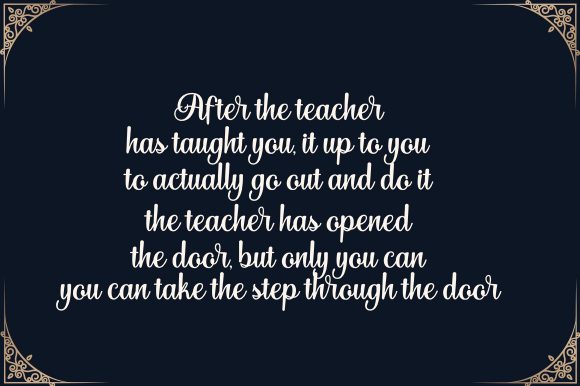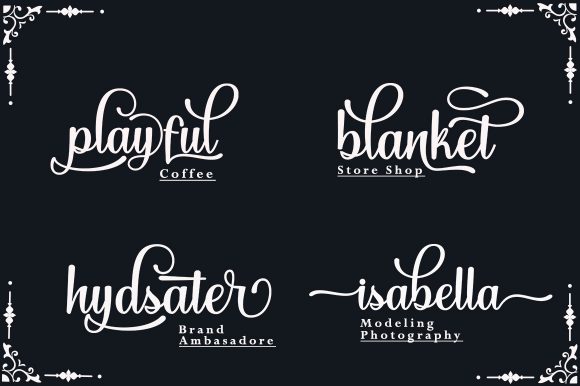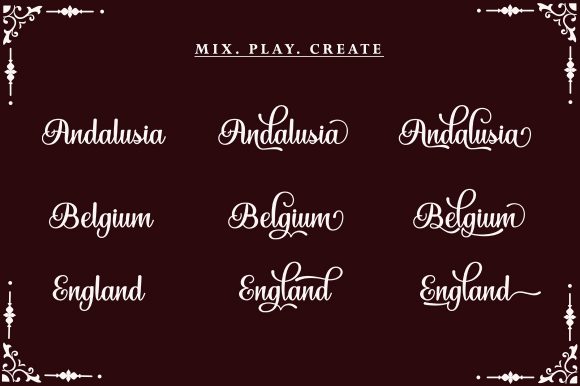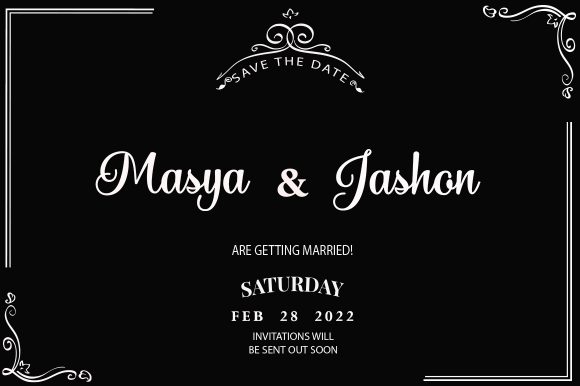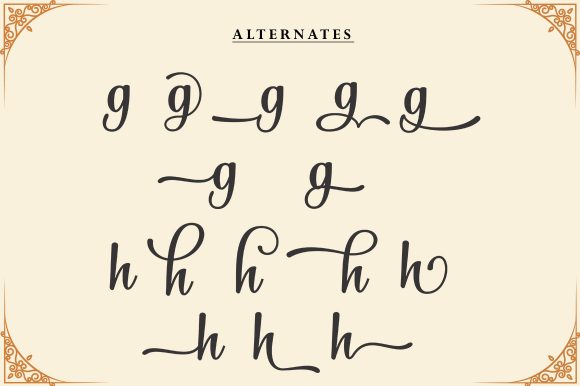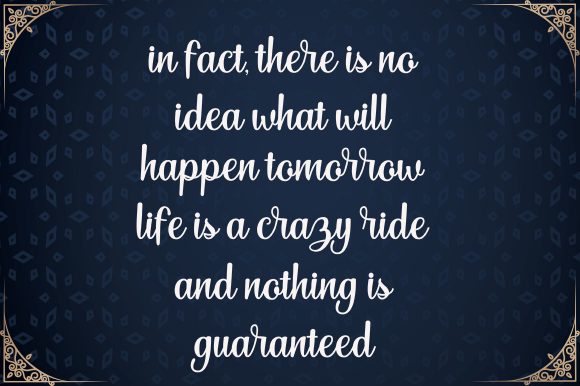
Unleash the Power of Ghosting Font: Elevate Your Designs with a Celestial Touch
In the realm of typography, few fonts manage to capture the essence of elegance and uniqueness as effectively as the Ghosting Font. This assertive and distinct script font has been meticulously designed to catapult your creative projects into a stratosphere of visual excellence. Whether you’re a seasoned designer or a crafting enthusiast, Ghosting Font is poised to become your go-to choice for projects that demand a touch of the extraordinary.
The Distinctive Charm of Ghosting Font
Ghosting Font stands out in the crowded world of typography due to its exceptional design. Every letter, every swash, and every glyph has been crafted with precision to ensure that your creations don’t just stand out—they dazzle. The font’s unique character is reminiscent of celestial movements, evoking a sense of mystery and allure that is hard to resist.
PUA Encoding: Accessibility and Versatility
One of the key features that set Ghosting Font apart is its PUA (Private Use Area) encoding. This means that accessing the full spectrum of glyphs and swashes is incredibly straightforward. Designers and crafters can easily navigate through the font’s extensive library of characters, allowing for a seamless creative process. This level of accessibility ensures that your designs can be as intricate or as simple as you desire, all while maintaining a cohesive and sophisticated aesthetic.
Applications of Ghosting Font: A Universe of Possibilities
The versatility of Ghosting Font is one of its most compelling attributes. This font isn’t limited to a specific genre or medium; rather, it can elevate a wide array of projects. Here are just a few examples of how you can utilize Ghosting Font:
- Branding and Logos: Create a memorable brand identity with a logo that shines. Ghosting Font’s unique style ensures that your brand stands out in any industry.
- Stationery and Invitations: Add a touch of elegance to your wedding invitations, greeting cards, and other stationery with this beautiful script font.
- Digital Media: From social media posts to website headers, Ghosting Font can add a professional yet creative flair to your digital content.
- Crafting and DIY Projects: Whether you’re designing patterns for embroidery, creating custom decals, or crafting handmade cards, Ghosting Font can bring a sophisticated touch to your DIY endeavors.
Tips for Maximizing the Potential of Ghosting Font
To truly harness the power of Ghosting Font, consider the following tips:
- Experiment with Swashes: Don’t be afraid to play around with the various swashes and glyphs available. They can add a unique touch to your designs.
- Mix and Match: Combine Ghosting Font with complementary fonts for a layered look that adds depth to your projects.
- Adjust and Customize: Take advantage of the font’s flexibility by adjusting sizes, colors, and styles to fit your project’s needs.
Ghosting Font is more than just a script font—it’s a tool for transformation. With its distinctive design, PUA encoding for ease of use, and versatility across various projects, it’s an invaluable asset for designers and crafters alike. By incorporating Ghosting Font into your creative toolkit, you’re not just choosing a font; you’re embracing a new standard of visual excellence. So why wait? Unlock the celestial charm of Ghosting Font and watch your designs soar to new heights.